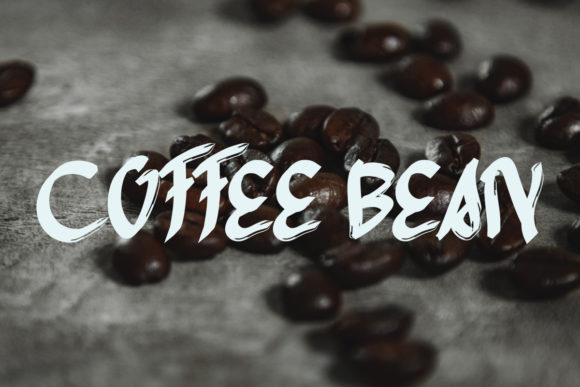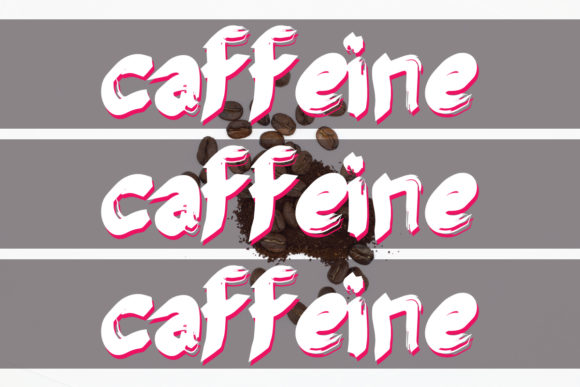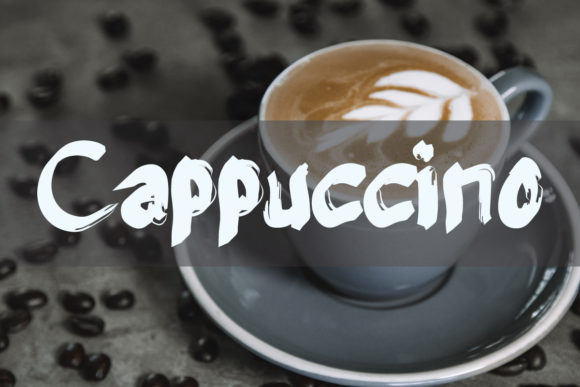
The Ultimate Guide to Coffee Black Font: Elevate Your Designs with a Unique Touch
Have you ever been in the middle of a design project, and suddenly, you’re stuck on finding the perfect font? I recall a recent experience where I was working on a branding project for a trendy coffee shop, and I just couldn’t find a font that captured the casual yet stylish vibe I was going for. That’s when I stumbled upon Coffee Black Font, and let me tell you, it was a game-changer! 🍵
Coffee Black Font: A Personal Review
Coffee Black is a casual, neat, and chunky lettered display font that was created with the help of a brush pen. It’s designed to leave an incredibly unique mark on your projects. Here’s what I love about it:
- ✨ Unique and eye-catching design that’s perfect for making a statement
- ✅ Easy to read, even in large and small sizes
- 💡 Great for titles, headings, and short paragraphs of text
- 🎨 Works well with a variety of design styles, from modern to vintage
While Coffee Black Font is amazing, it’s not perfect. Here are a few quirks to keep in mind:
- 🤔 Limited use for body text, as it’s best suited for headings and titles
- ⚠️ May not work well with very formal or traditional design styles
The Story Behind Coffee Black Font
Coffee Black Font was created by a talented designer who wanted to bring a unique touch to the world of typography. Inspired by the imperfections of handwritten text, this font was crafted with love and care to bring a sense of personality to your designs. Whether you’re a designer, crafter, or creative hobbyist, Coffee Black Font is sure to become a favorite in your collection.
| Font Name | Coffee Black Font |
| What is Coffee Black Font best used for? | Coffee Black Font is best used for titles, headings, and short paragraphs of text where you want to make a statement. |
| Can I use Coffee Black Font for body text? | While it’s possible to use Coffee Black Font for body text, it’s best suited for headings and titles due to its chunky and casual design. |
And there you have it – a comprehensive guide to Coffee Black Font! With its unique design, ease of use, and versatility, this font is sure to become a staple in your design collection.